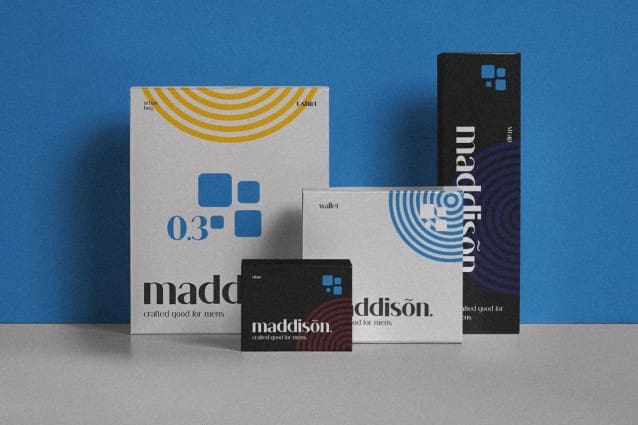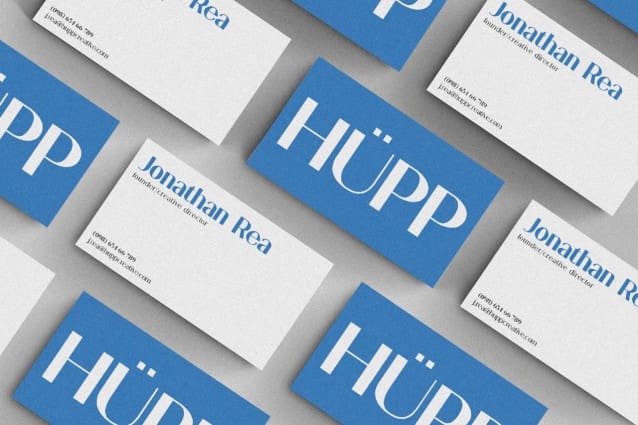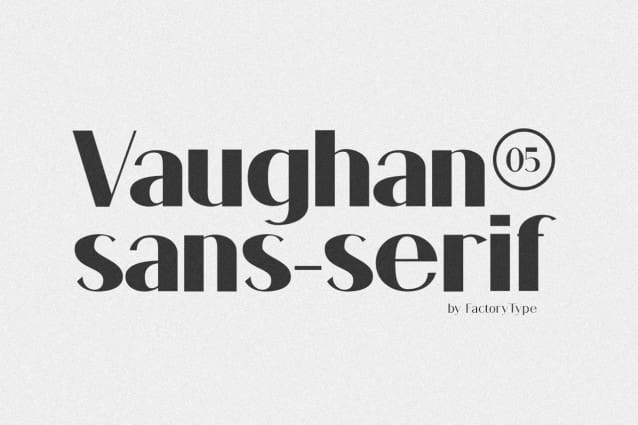
Vaughan Font
Vaughan Font, a modern and balanced sans-serif font for FREE. Whether you’re working on brand identity, print, editorial design, or branding visuals, Vaughan is the perfect choice for any project that requires a professional and timeless look. Don’t miss out on this opportunity to elevate your designs with Vaughan – download it now for FREE.